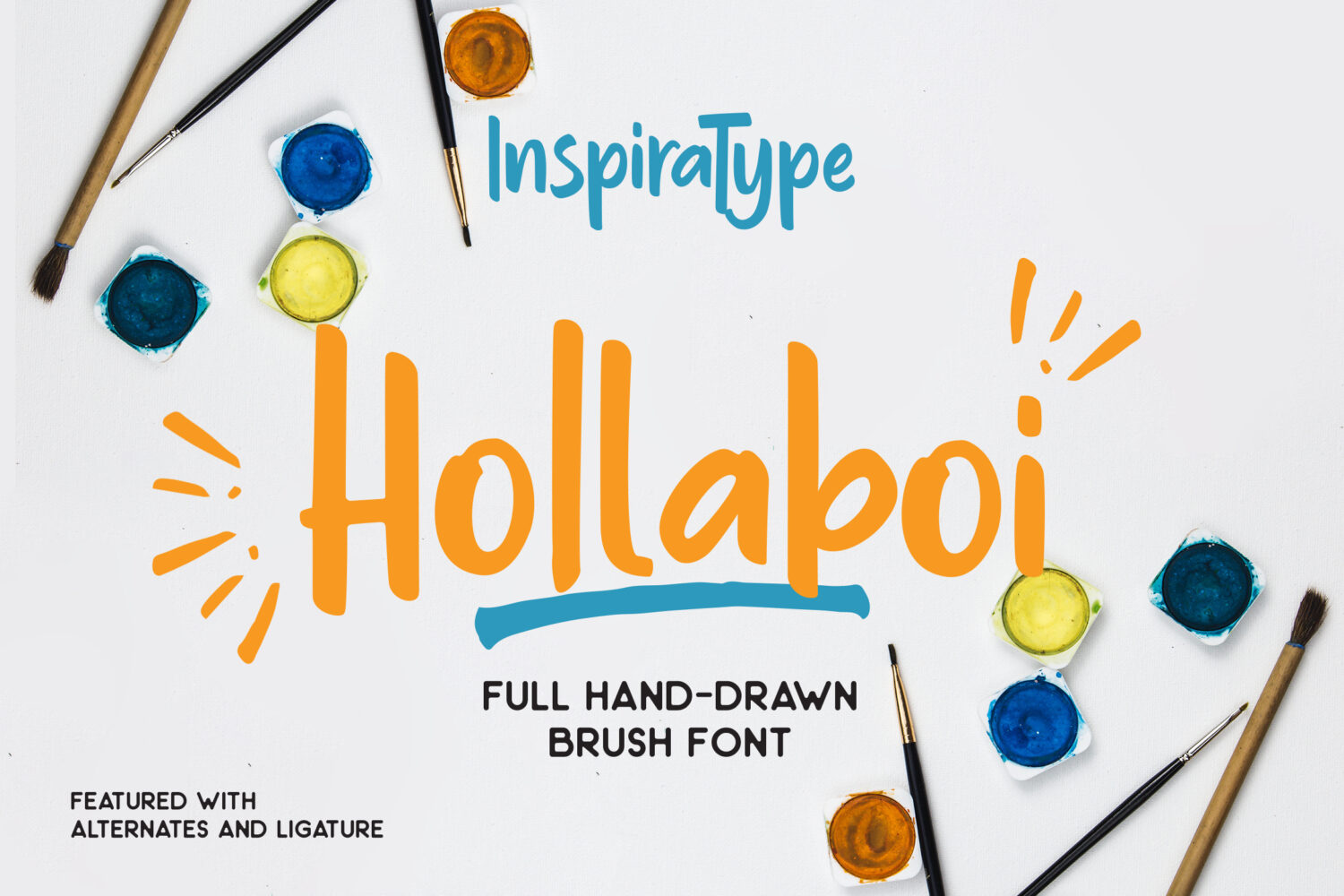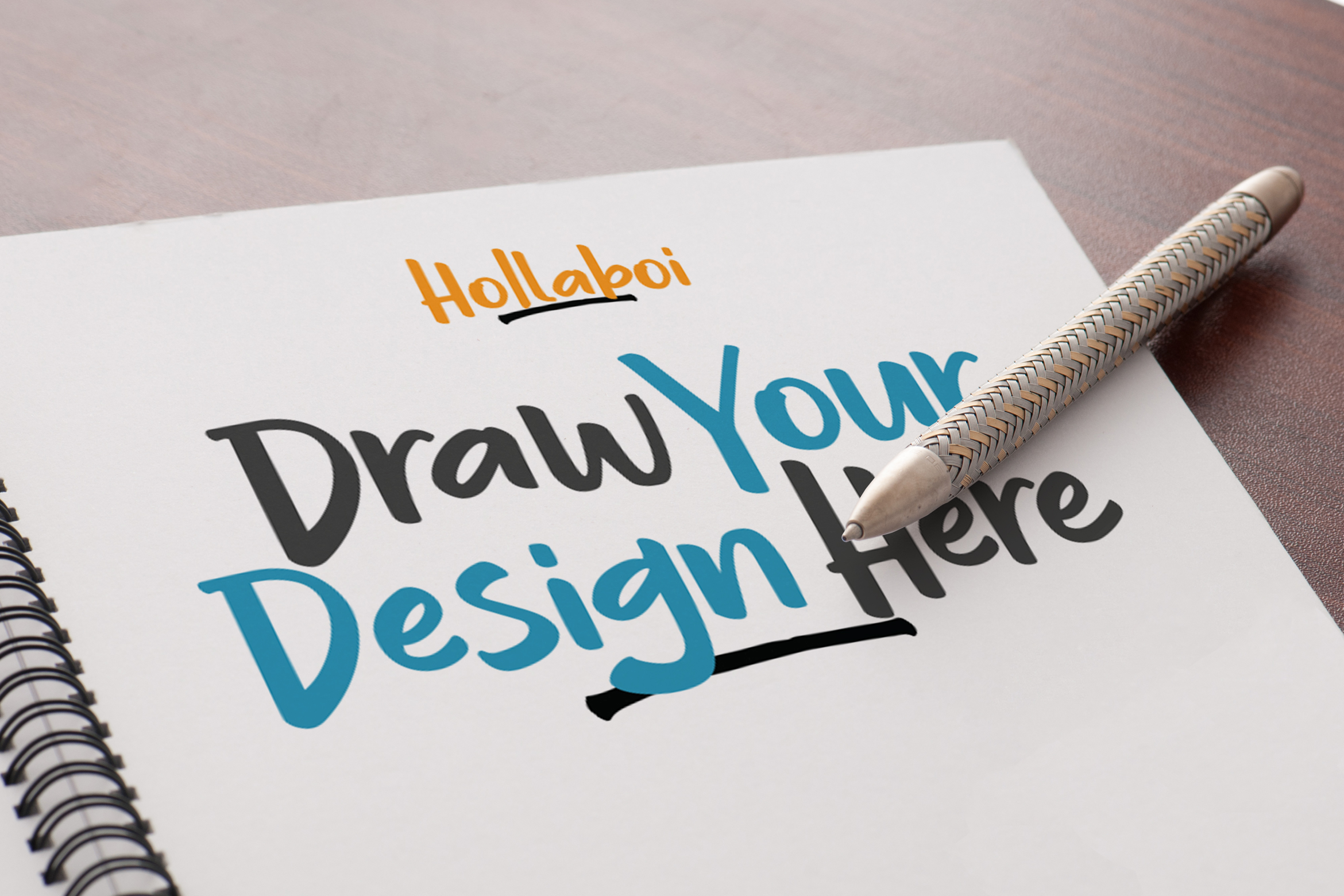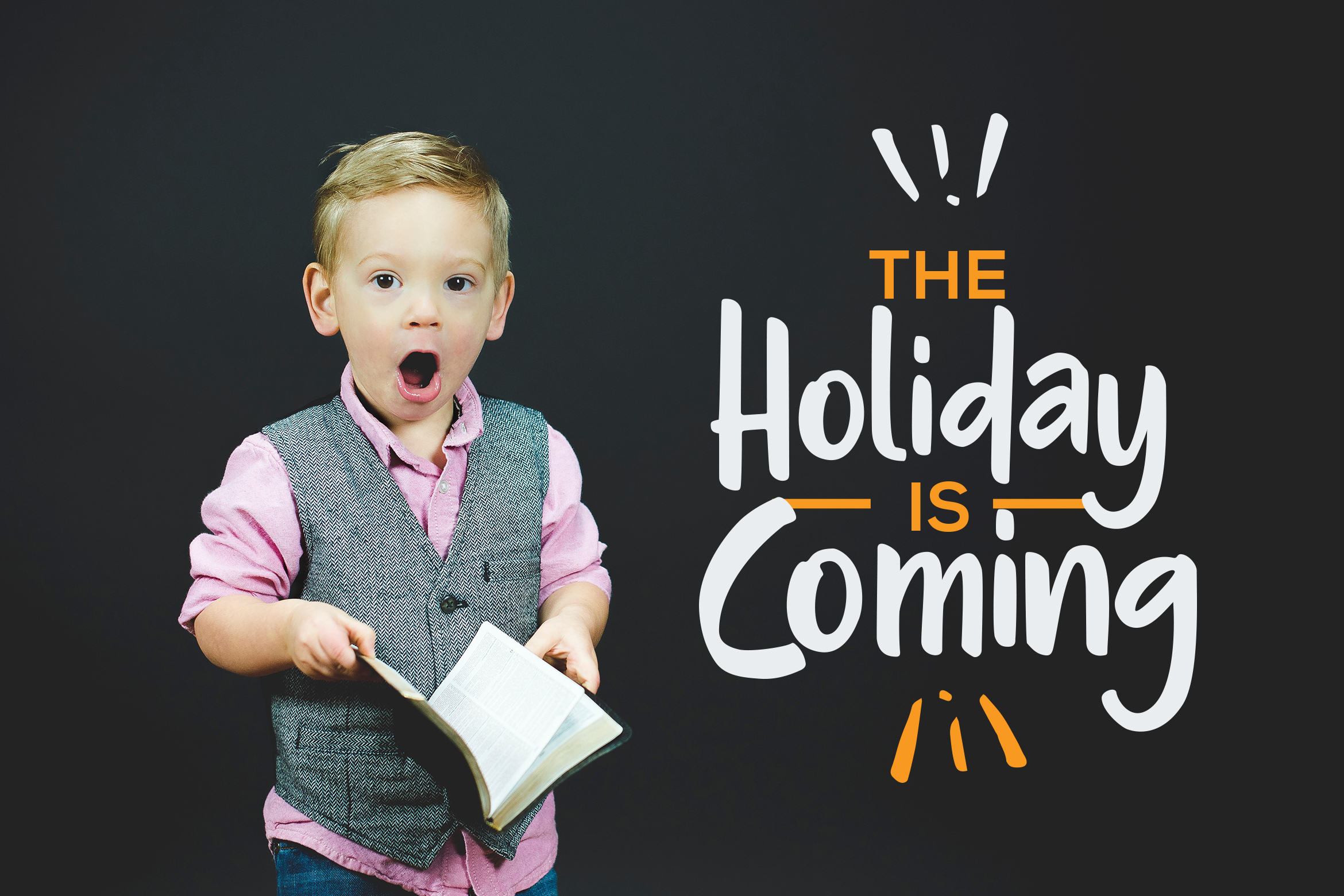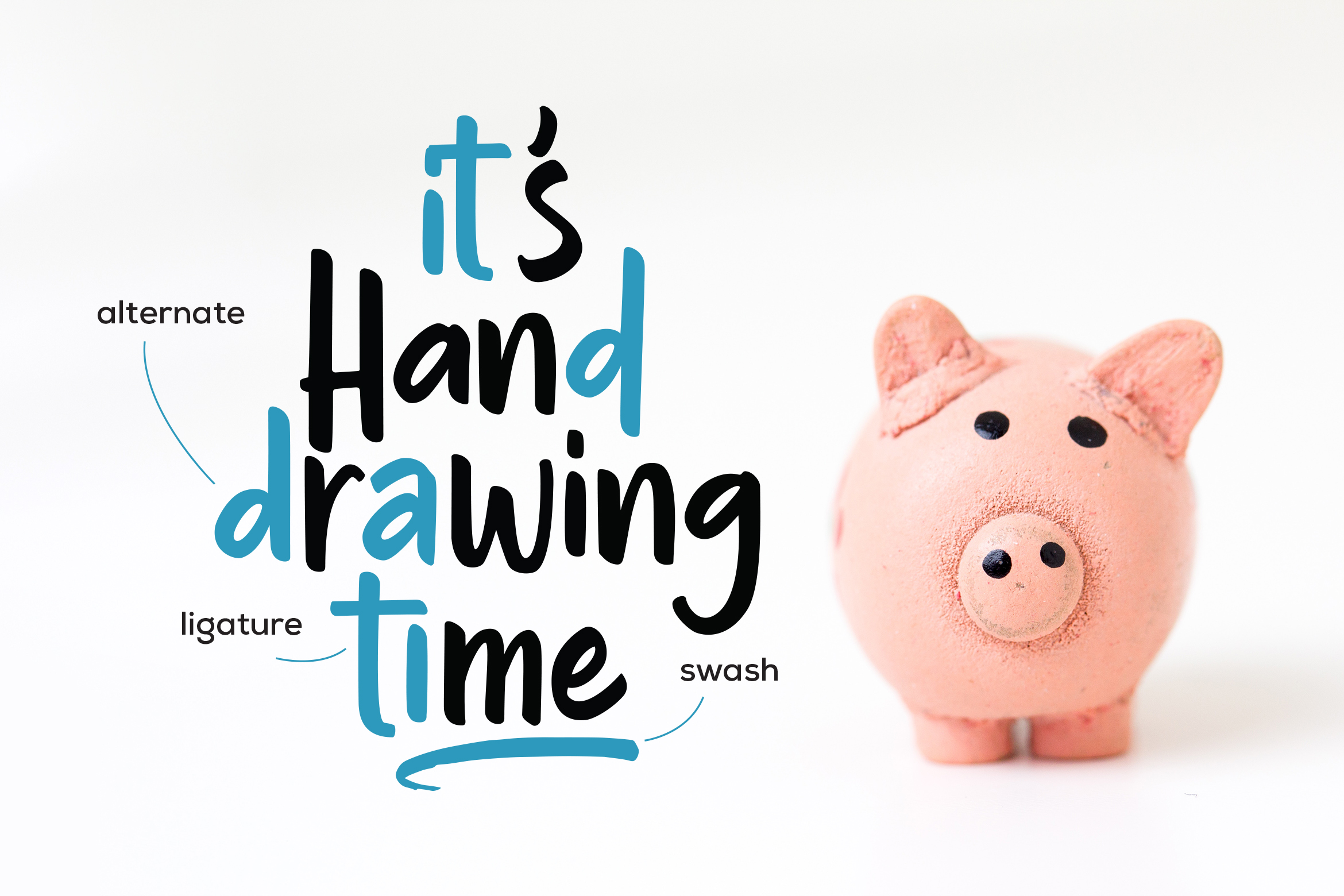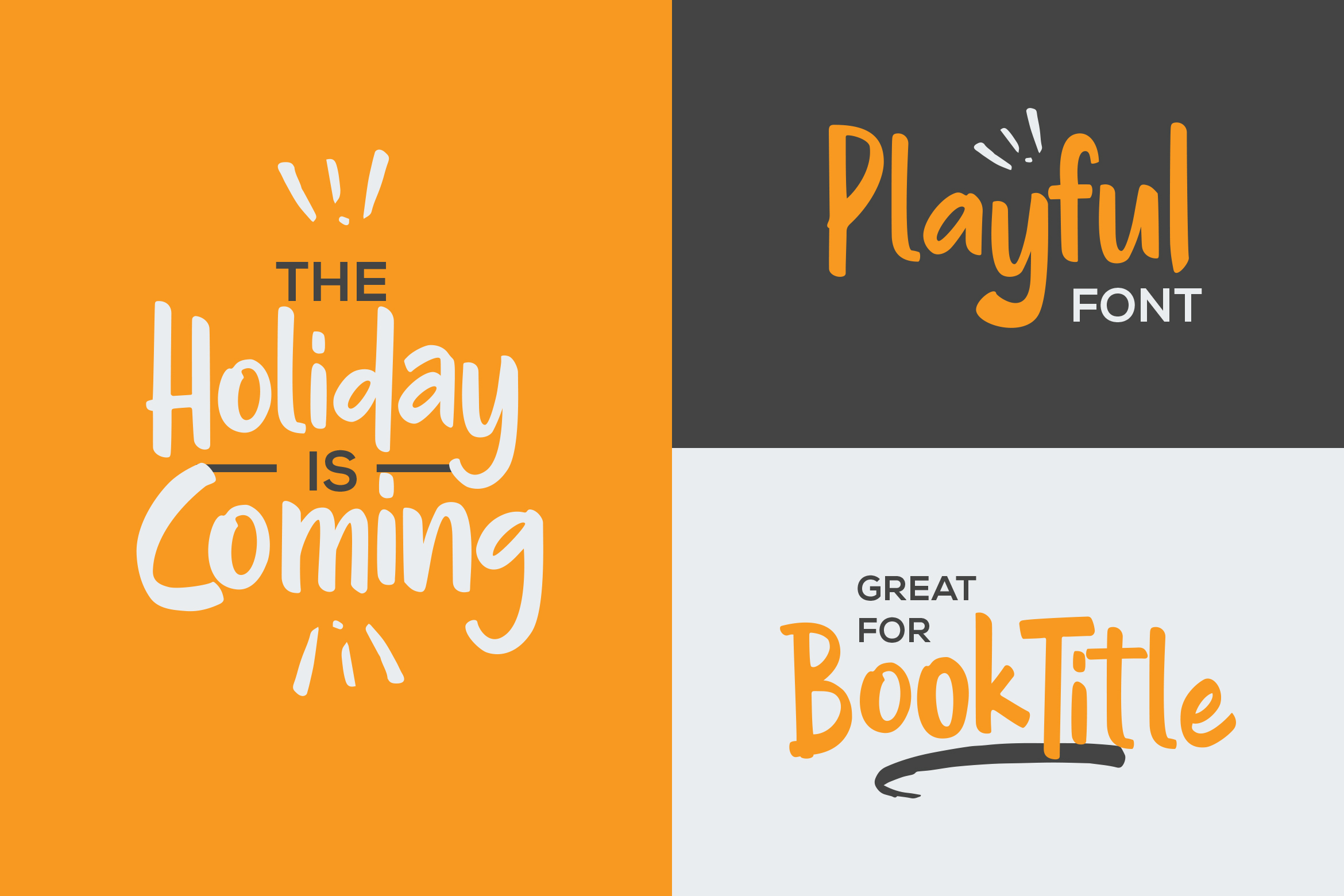
Hollaboi Free Font
Hollaboi Free Font is a font display is made by hand, inspired by classic posters. Comes with uppercase, lowercase, numerals, punctuations and so many variations on each character include OpenType alternates, common ligatures, and also additional swash to let you customize your designs. Perfect to use for Logotype, Letterhead, Poster, Apparel Design, Label and etc.